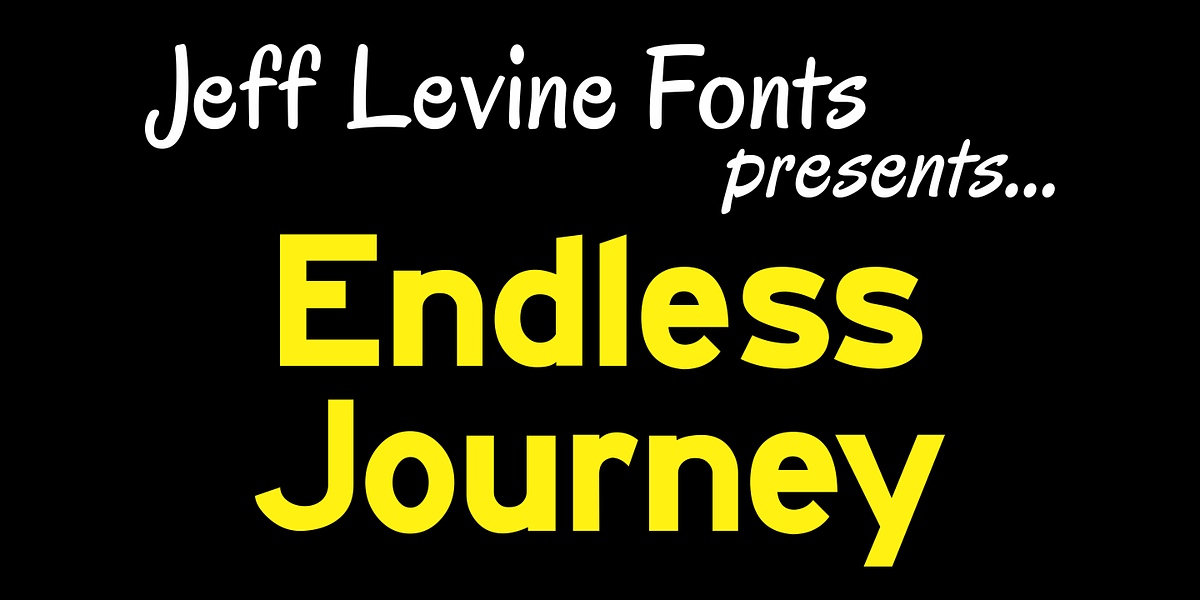
Endless Journey JNL
Endless Journey JNL is Jeff Levine’s interpretation of the ever-popular lettering found on highway signage; giving it a slightly handmade look.